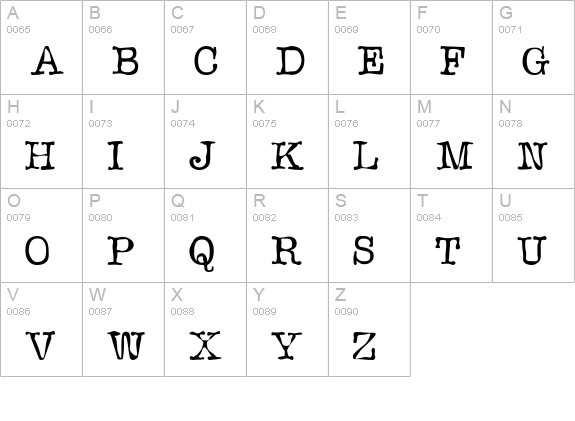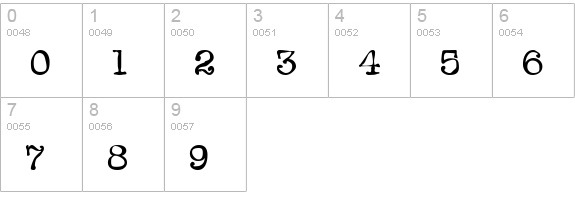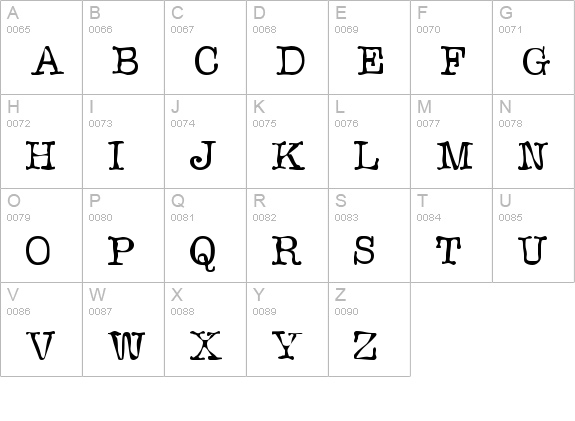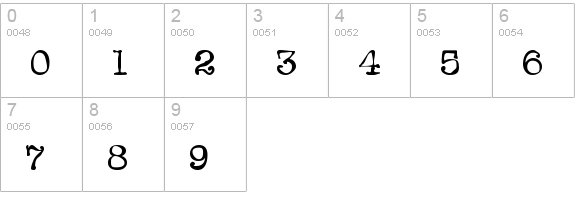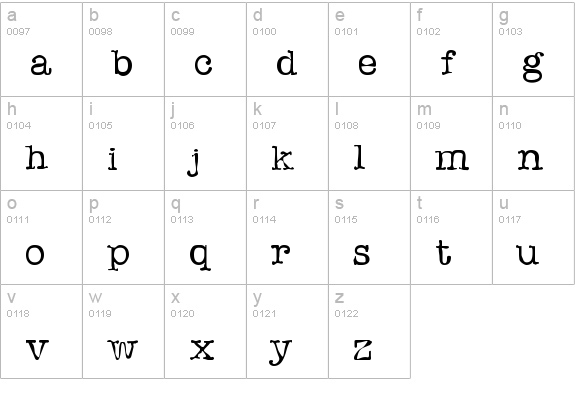
Sloppy Ink Font Details
Introducing Sloppy Ink font, a captivating and unconventional typeface that will inject a burst of creativity into your designs. With its unique and edgy style, Sloppy Ink font is perfect for adding a touch of raw authenticity to your projects. Its imperfect lines and irregular shapes create a sense of handcrafted charm, making it ideal for anything from posters and album covers to logos and social media graphics. But what sets Sloppy Ink font apart from the rest is not just its striking appearance, but also its incredible versatility. This font effortlessly adapts to various design themes, whether you're aiming for a grungy urban vibe or a playful and whimsical atmosphere. Its charismatic energy and organic flow will captivate audiences and leave a lasting impression. And the best part? Sloppy Ink font is absolutely free! That's right, you can now unleash your creativity without any limitations or constraints. You can freely download Sloppy Ink font at FontsMarket.com, the leading source for high-quality fonts. Don't miss out on this incredible opportunity to enhance your designs with a font that is both visually stunning and completely accessible. So why wait? Dive into the world of Sloppy Ink font and let your imagination run wild. Transform your projects into works of art that reflect your unique style and personality. Whether you're a professional graphic designer or a passionate hobbyist, Sloppy Ink font is the perfect tool to elevate your creations and make them truly stand out. Embrace the freedom and endless possibilities that come with this exceptional font, and watch as your designs come to life in ways you never thought possible. Download Sloppy Ink font today and embark on a creative journey like no other. Unleash your artistic prowess and make a bold statement with every stroke. Get ready to leave a lasting impression and set your designs apart from the crowd. It's time to make your mark with Sloppy Ink font, the ultimate expression of artistic freedom.